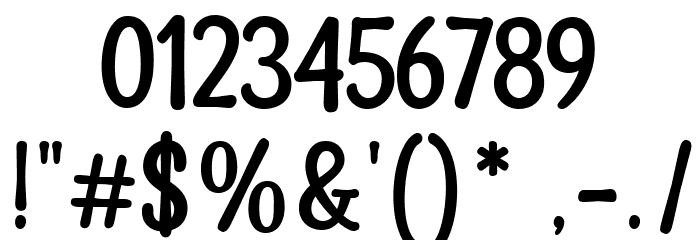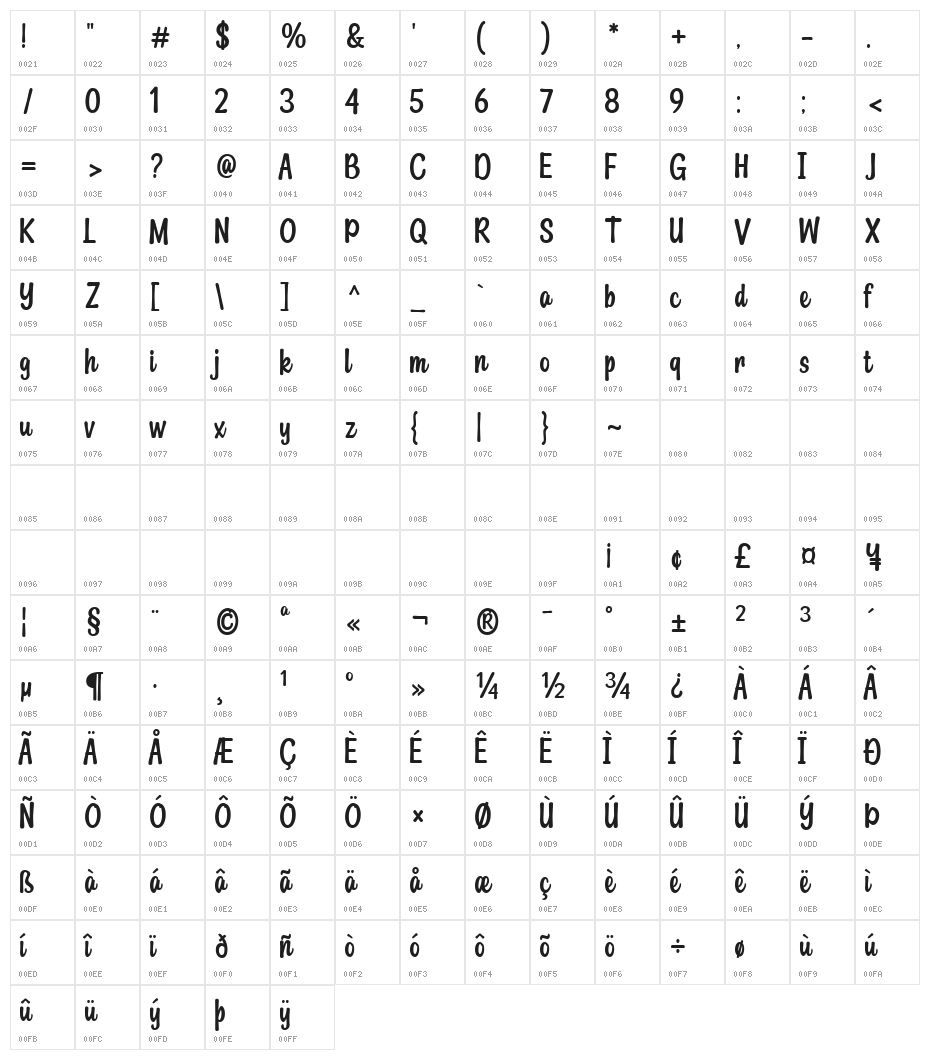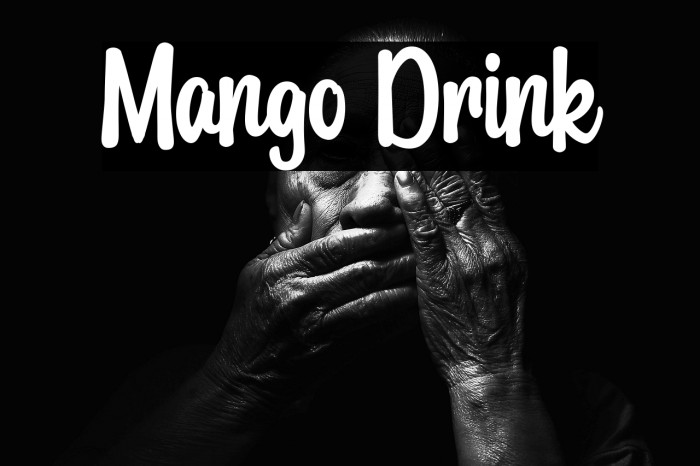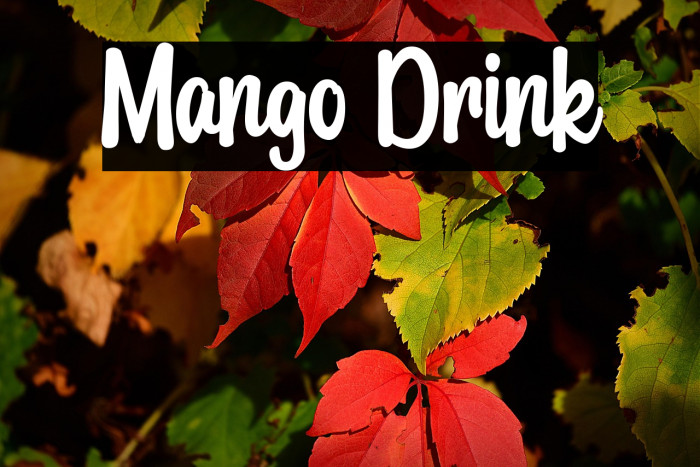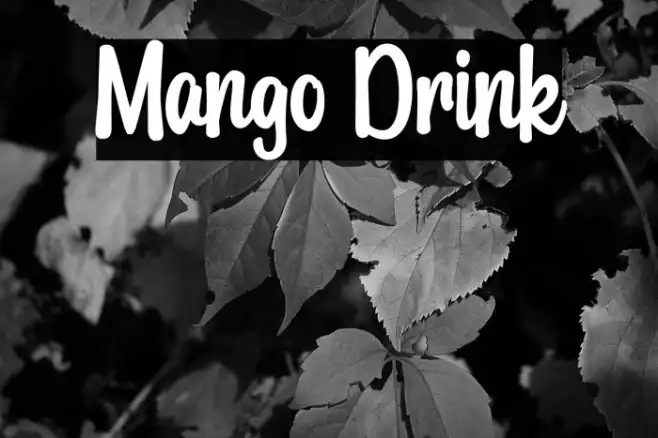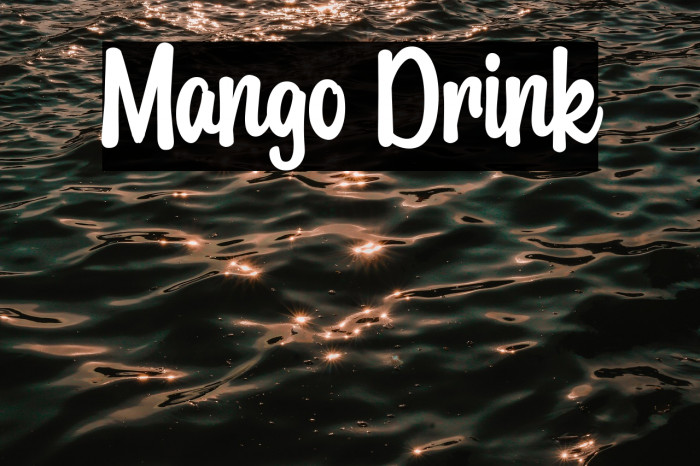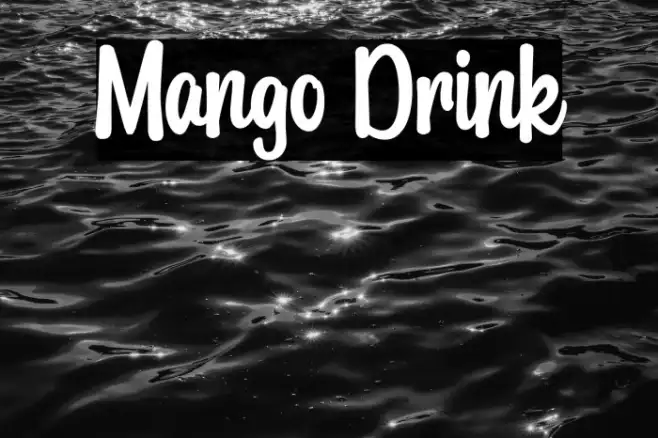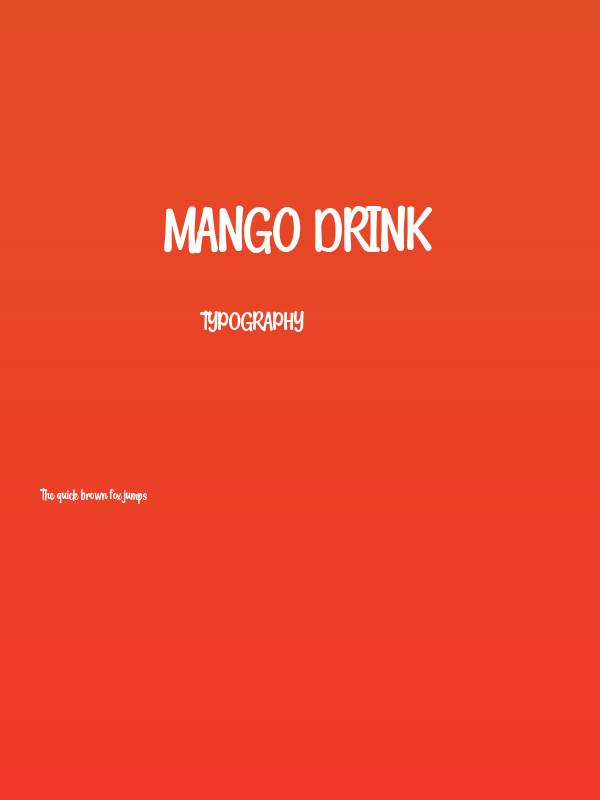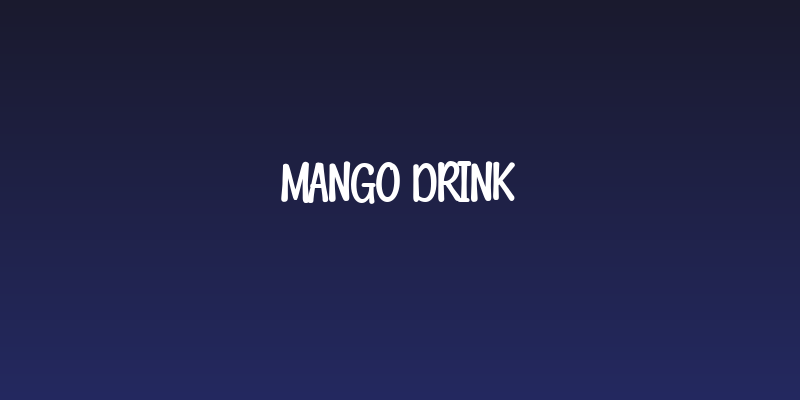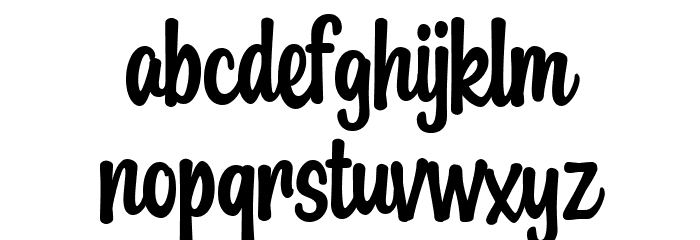
Mango Drink Font
Mango Drink Description
This playful and energetic font features bold, rounded characters with a hand-drawn aesthetic. The uppercase letters are tall and slightly condensed, while the lowercase letters have a more casual, flowing script style. The numbers are consistent with the uppercase in terms of weight and style, maintaining a cohesive look. Special characters are included, matching the overall playful and informal vibe. The font's design is ideal for projects that require a fun and approachable feel, such as children's books, playful branding, or casual invitations.
Overall StylePlayful, Informal
Proposed ProjectsIdeal for children's books, playful branding, casual invitations, and fun posters.